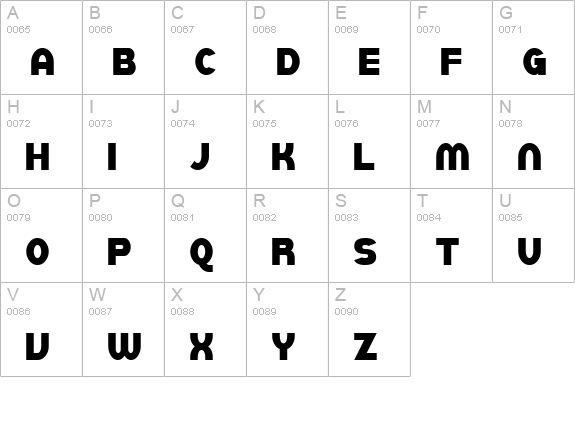
SF Juggernaut Condensed Font Details
SF Juggernaut Condensed is a distinctive, condensed-width variant in the SF typeface family \xE2\x80\x94 well suited to design and typography projects.
SF Juggernaut Condensed font is a modern and versatile typeface that exudes power and strength. Its condensed design is perfect for projects that require a bold and impactful look. With its clean lines and sharp edges, this font demands attention and captures the essence of forward-thinking design. The letterforms of SF Juggernaut Condensed are meticulously crafted, ensuring readability and legibility in any size or format. Whether used in headlines, logos, posters, or web design, this font will make a lasting impression on your audience. What makes SF Juggernaut Condensed even more appealing is that it is available for free download at FontsMarket.com. Now you can add this stunning font to your collection without breaking the bank. It is a valuable resource for designers, students, and anyone looking to add a touch of professionalism and sophistication to their projects. By using SF Juggernaut Condensed, you are not only showcasing your creativity and attention to detail but also saving money. Don't miss out on this fantastic opportunity to enhance your designs with a high-quality font that is freely available for download. Visit FontsMarket.com today and unlock the potential of SF Juggernaut Condensed font.